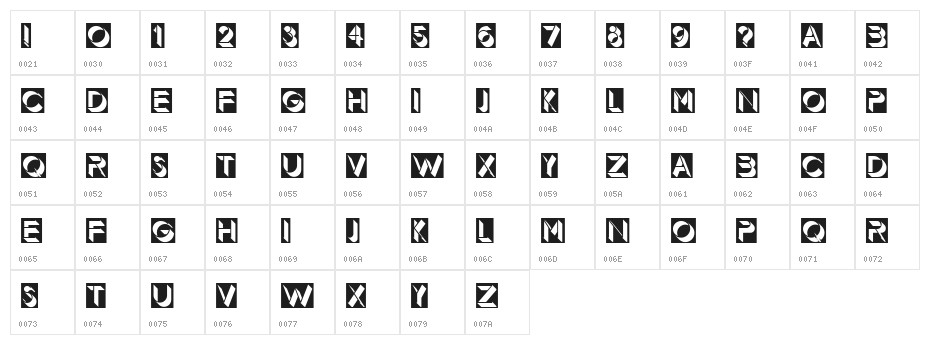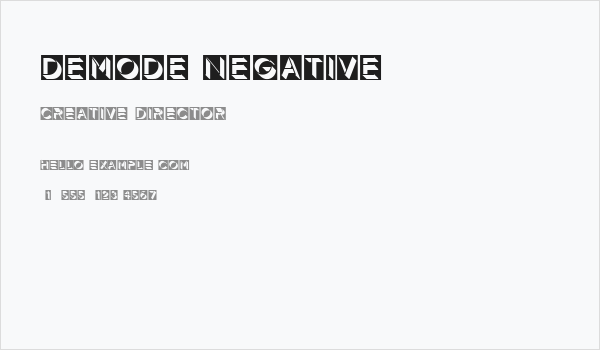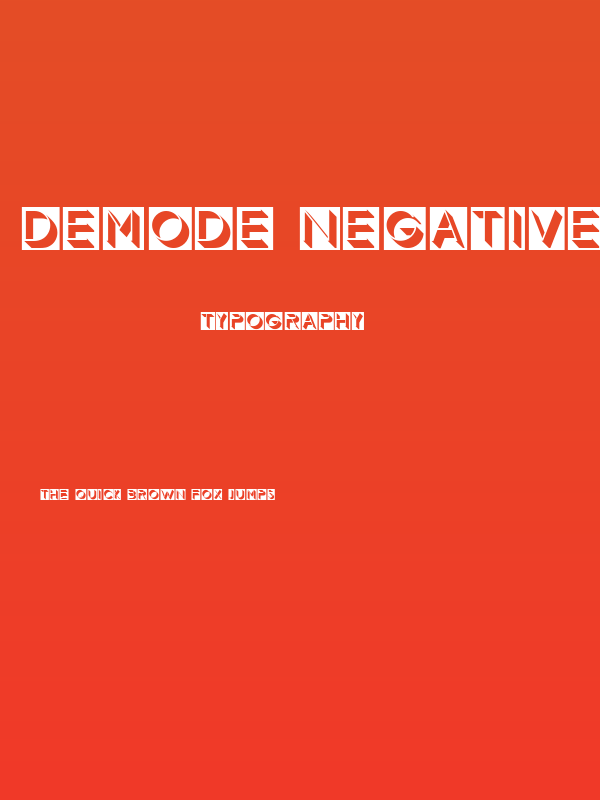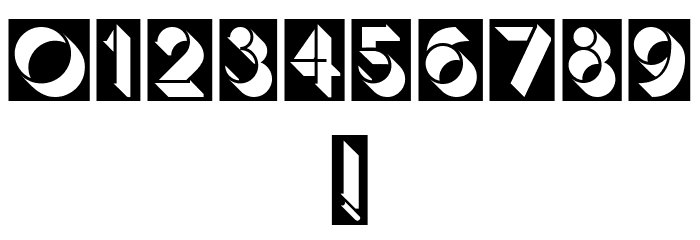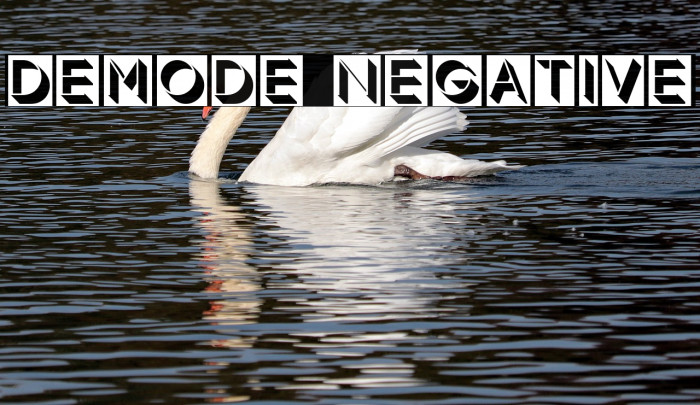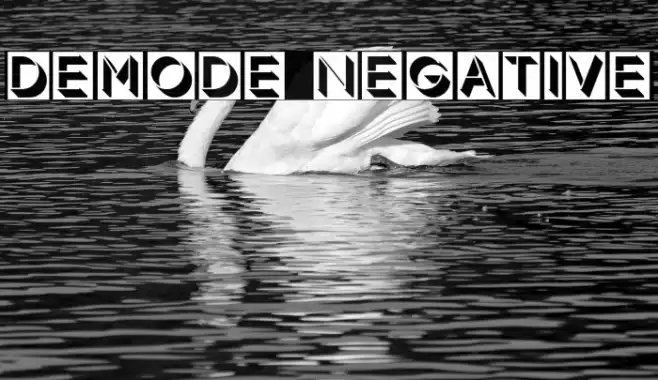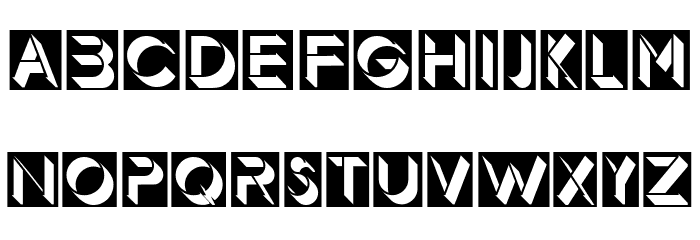
Demode Negative Font
Demode Negative Description
This font features a bold, geometric design with a striking use of negative space. Each character is enclosed within a square, creating a uniform and structured appearance. The letters and numbers are crafted with sharp angles and distinct cutouts, giving them a modern and edgy look. The high contrast between the black background and white character elements enhances the visual impact, making it ideal for attention-grabbing designs. The style is consistent across uppercase letters, numbers, and the exclamation mark, maintaining a cohesive aesthetic.
| Proposed Projects | Ideal for modern posters, branding, album covers, and any project requiring a bold statement. |